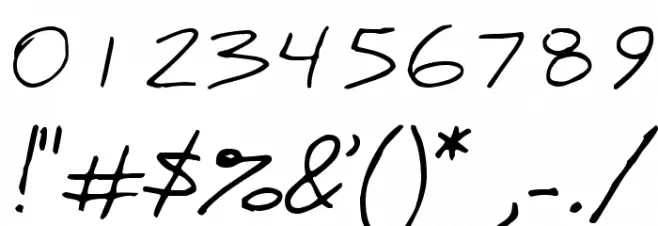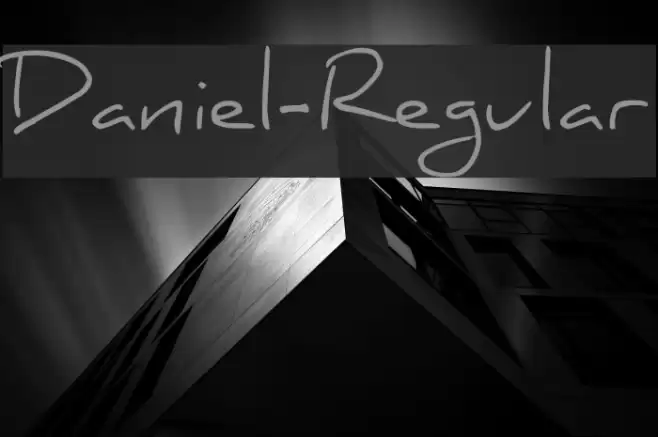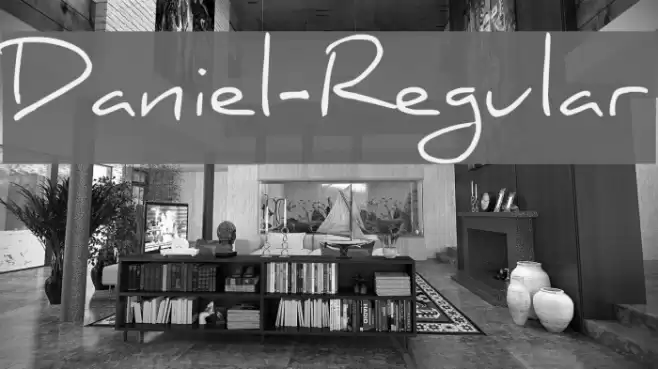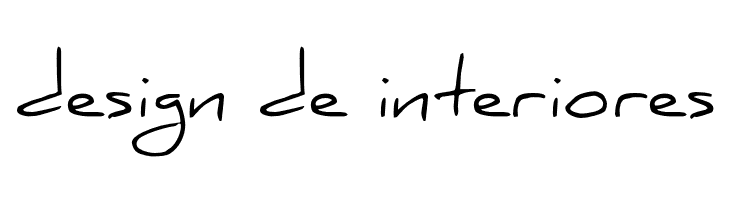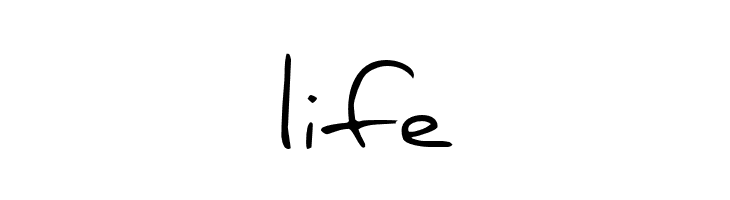
Daniel-Regular Font
Daniel-Regular Description
This font exudes a casual, handwritten style with a natural flow and slightly irregular strokes, giving it a personal and approachable feel. The uppercase letters are bold and slightly angular, while the lowercase letters maintain a consistent, rounded appearance. The numerals and special characters follow the same handwritten aesthetic, ensuring uniformity across all characters. The strokes vary in thickness, adding a dynamic and lively touch to the overall design. This font is versatile, suitable for projects that require a personal or informal tone.
A casual, handwritten font with a natural flow and dynamic strokes from Uncategorized fonts.
• Proposed Projects: Ideal for personal notes, invitations, greeting cards, and informal branding.
• Contrast: Medium
• Overall Style: Casual
• Use Case: Logos, Invitations, Greeting Cards